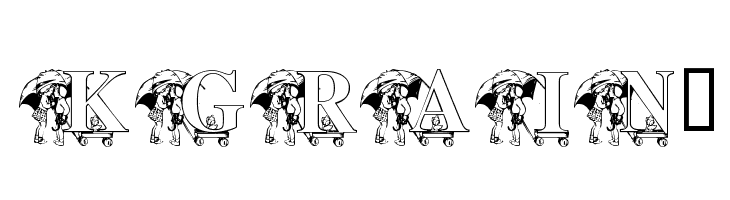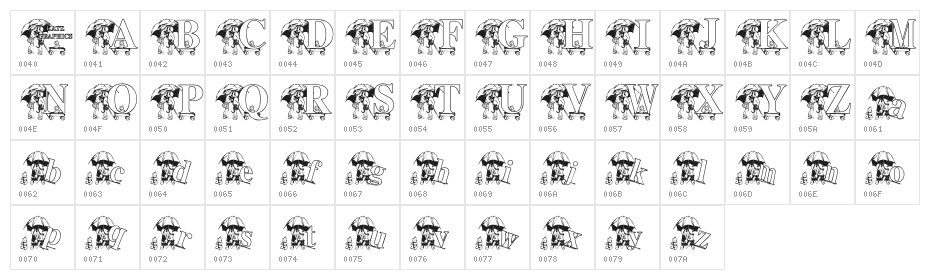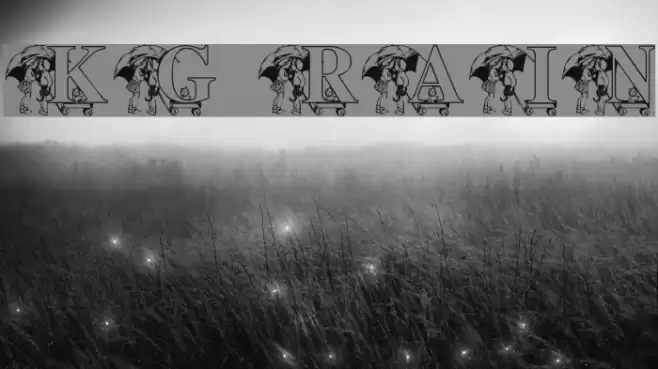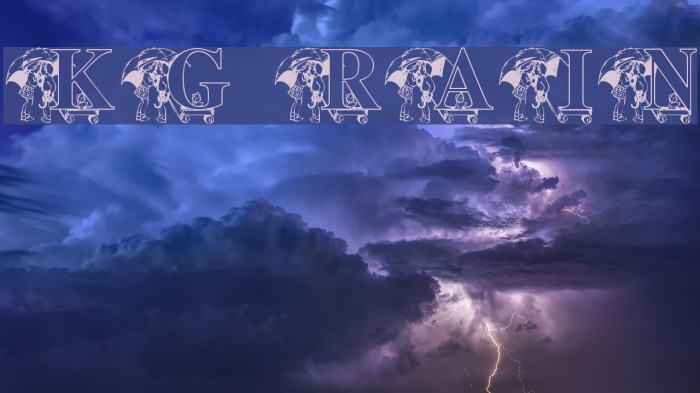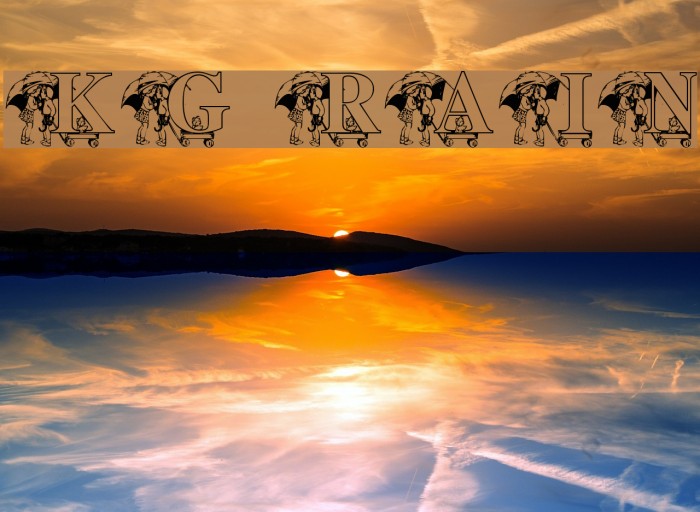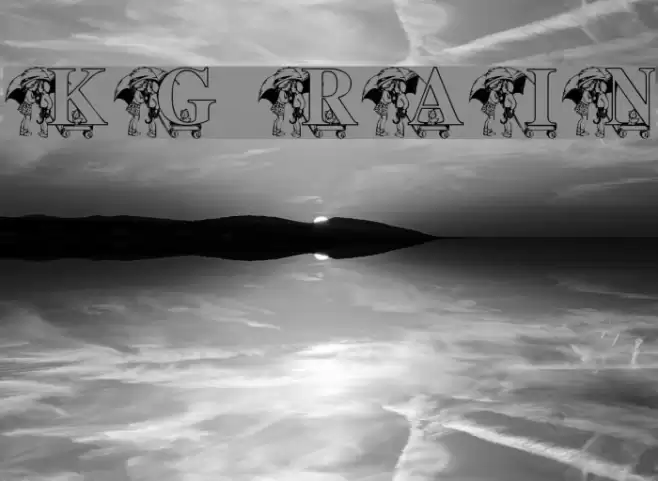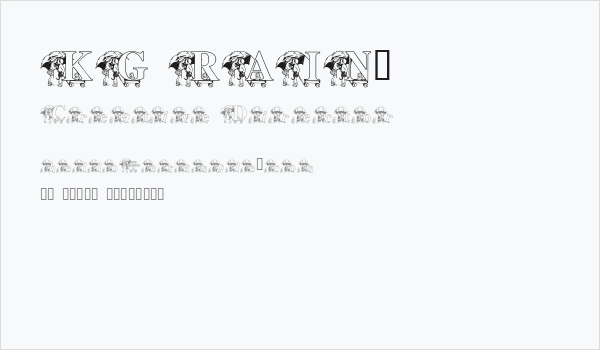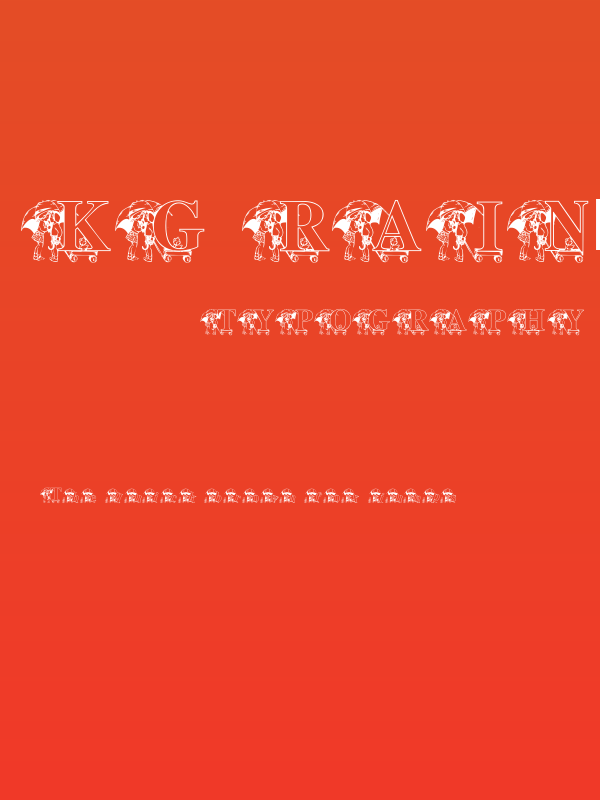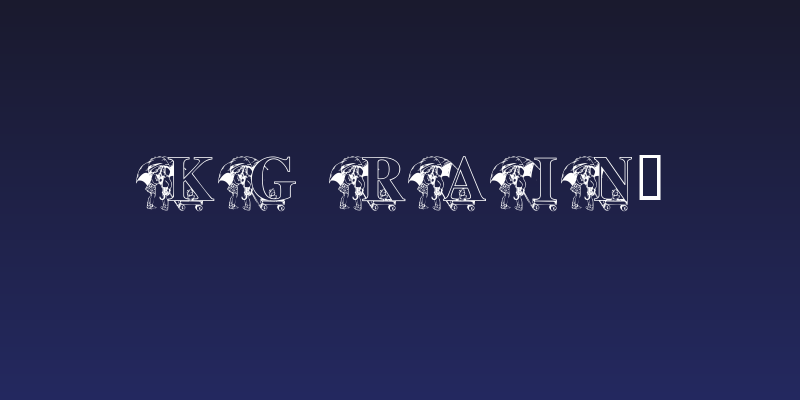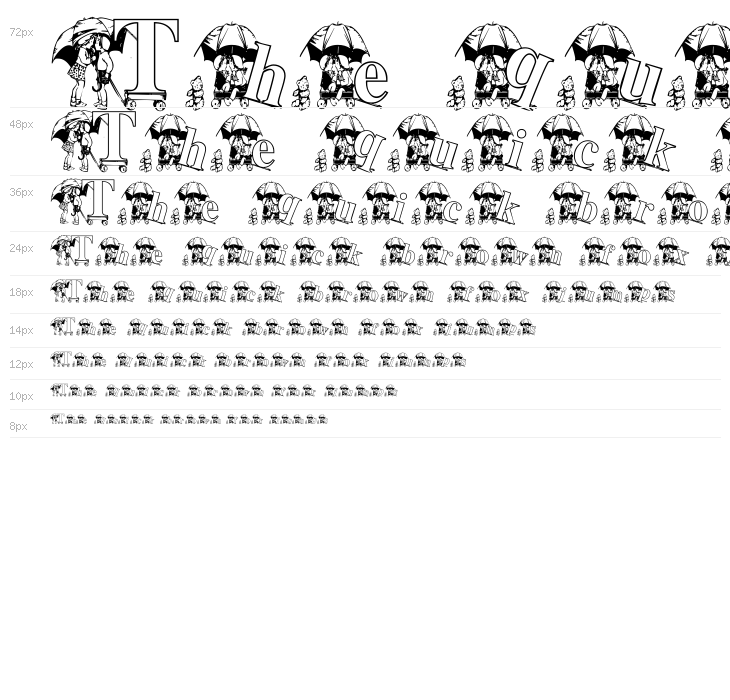
KG RAIN3 Font
KG RAIN3 Description
This whimsical and decorative font features each letter adorned with an umbrella and a small character, creating a playful and imaginative design. The uppercase and lowercase letters maintain a consistent theme, with intricate details that add a unique charm. The font lacks numerical and special character representation, focusing solely on the alphabet. Its artistic style makes it ideal for projects that require a touch of creativity and fun, such as children's books, playful invitations, or themed posters. The font's design is both engaging and visually appealing, capturing attention with its distinctive elements.
| Use Case | Headlines, Decorative text |
| Proposed Projects | Children's books, playful invitations, themed posters. |